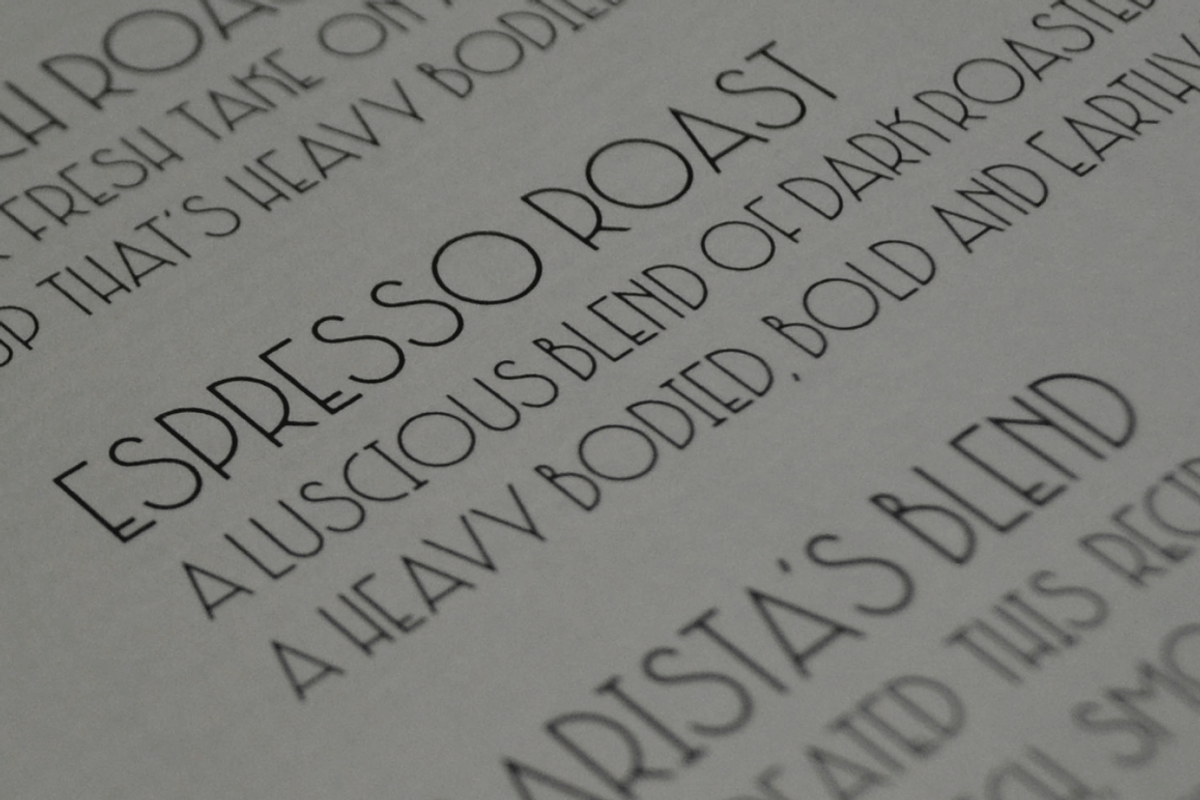
MB DECO
MB DECO by Ben Burford Fonts is a font selected for branding, posters, packaging, typography.
- All Caps Art Deco font with alternate characters in Upper and Lower Case glyphs, some nice ligatures to create interesting letter sets.
Why MB DECO is worth a look
MB DECO by Ben Burford Fonts fits naturally into Branding, posters, packaging, typography.